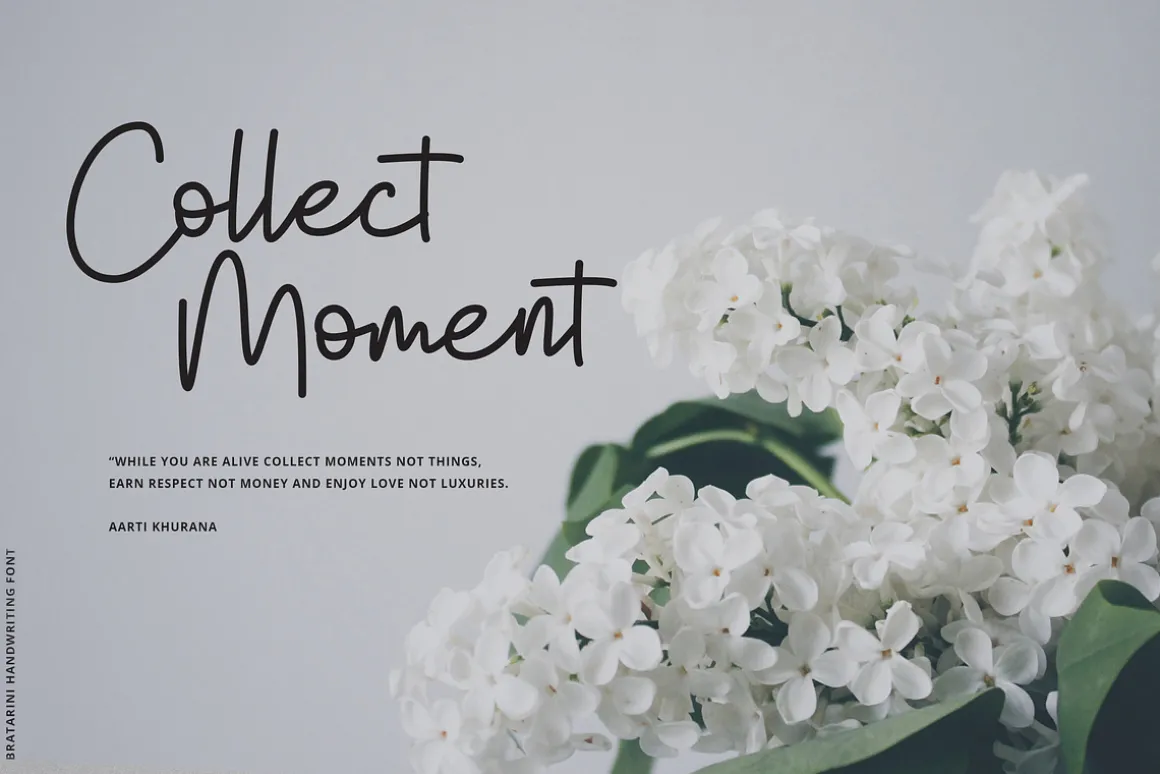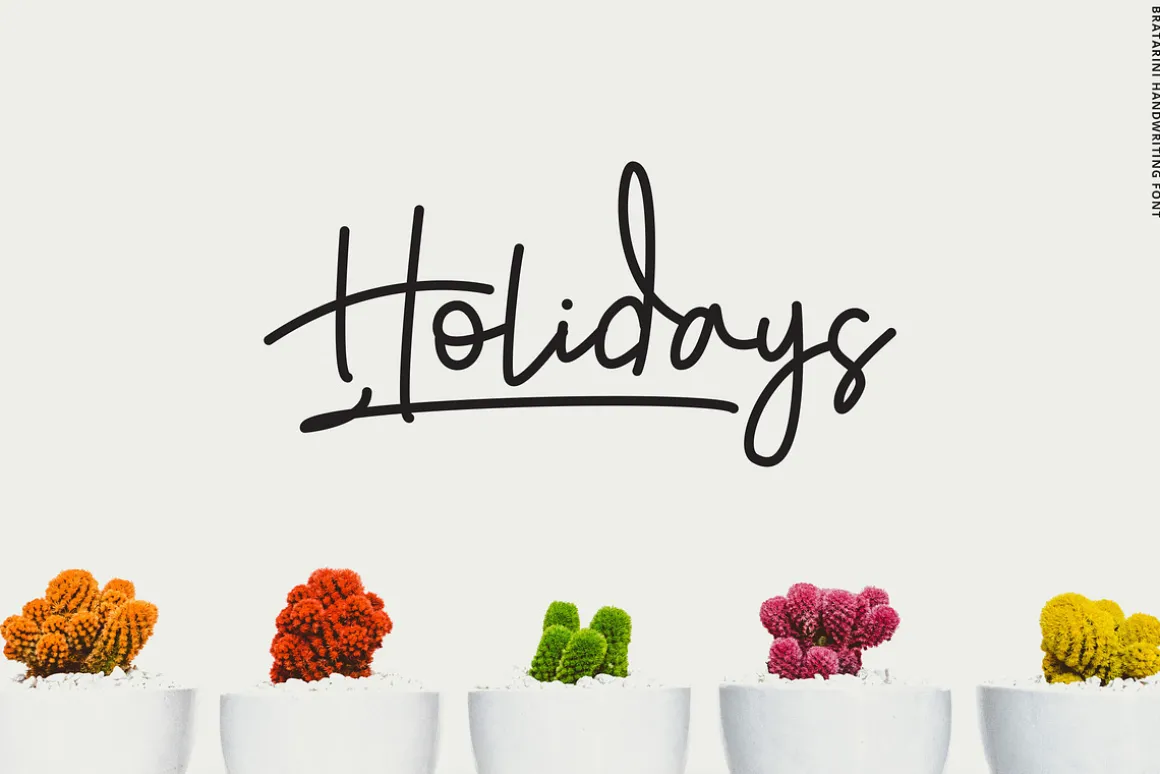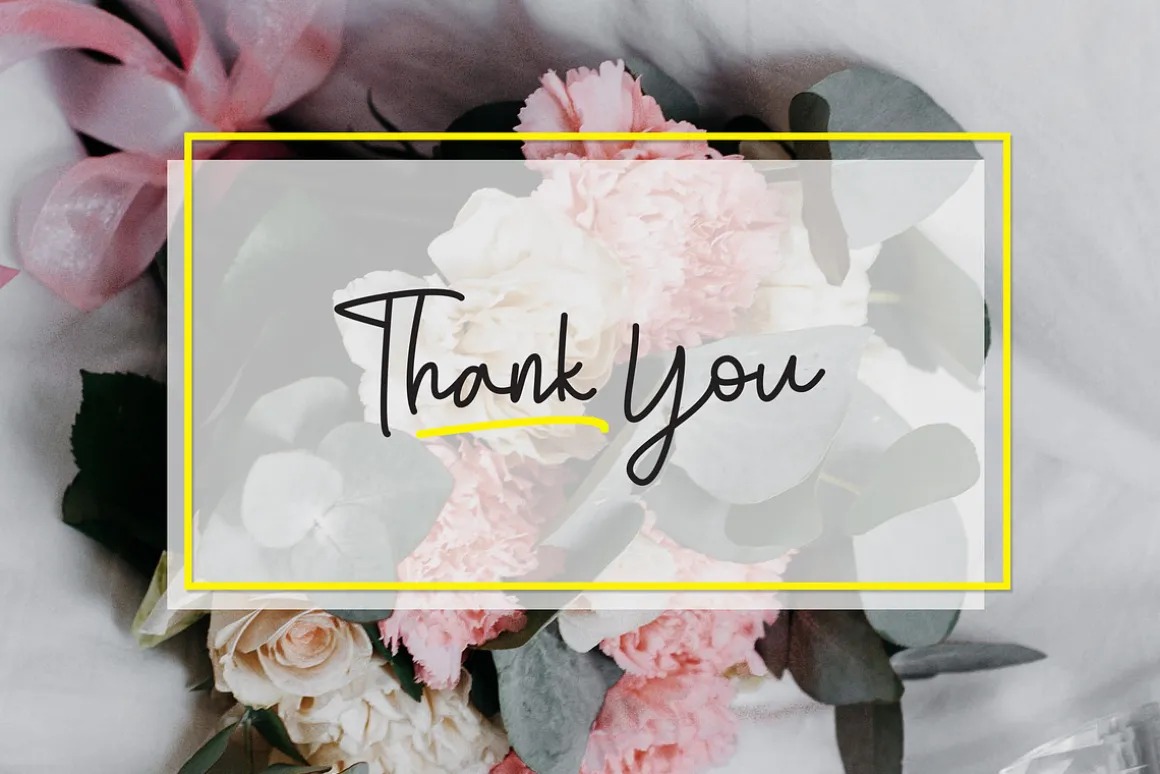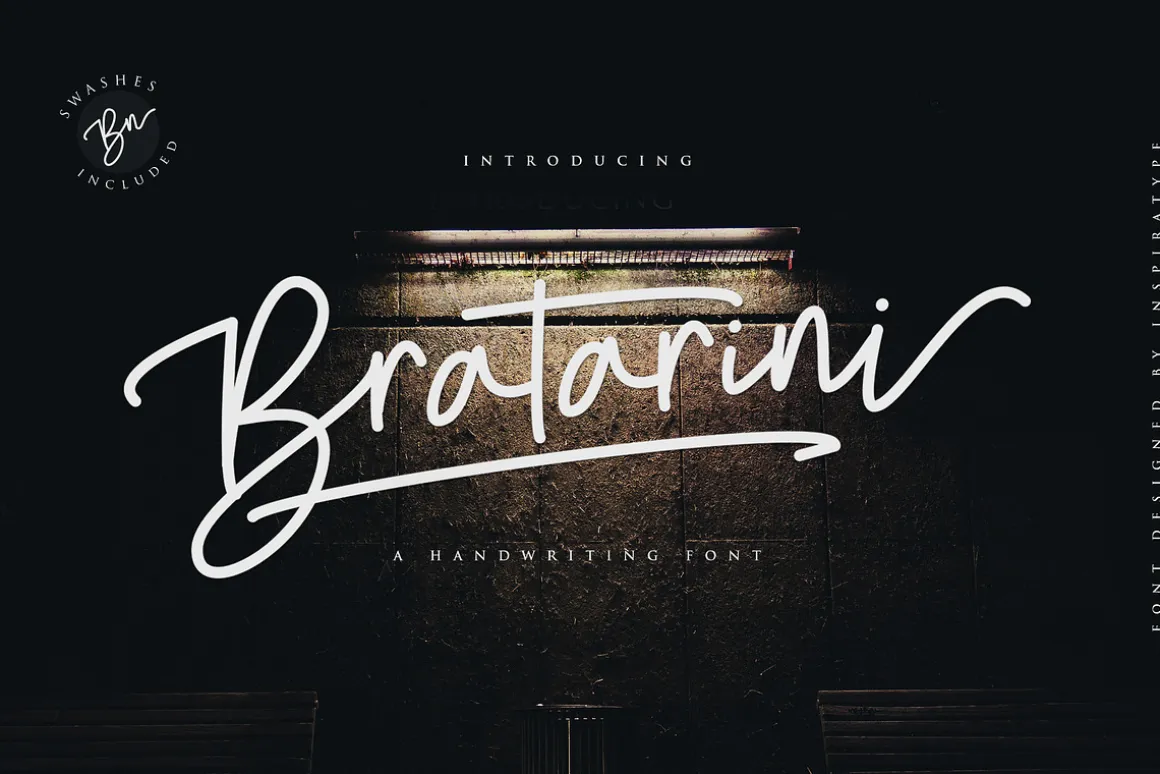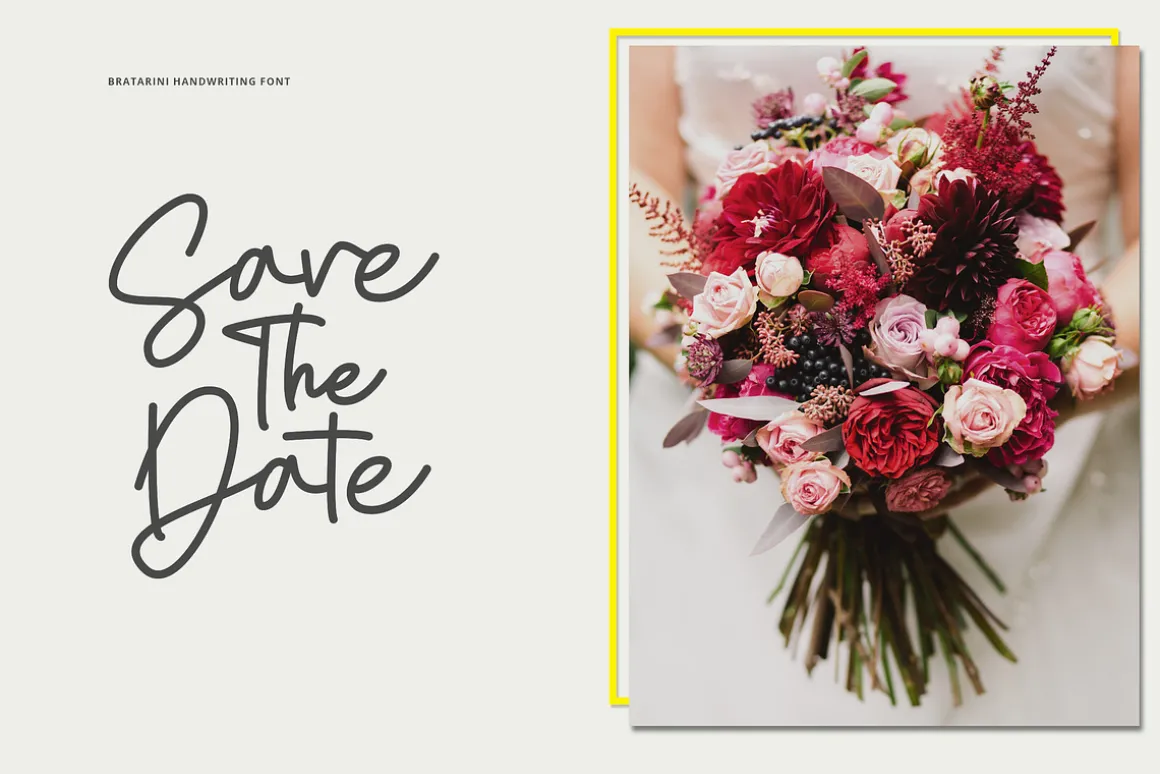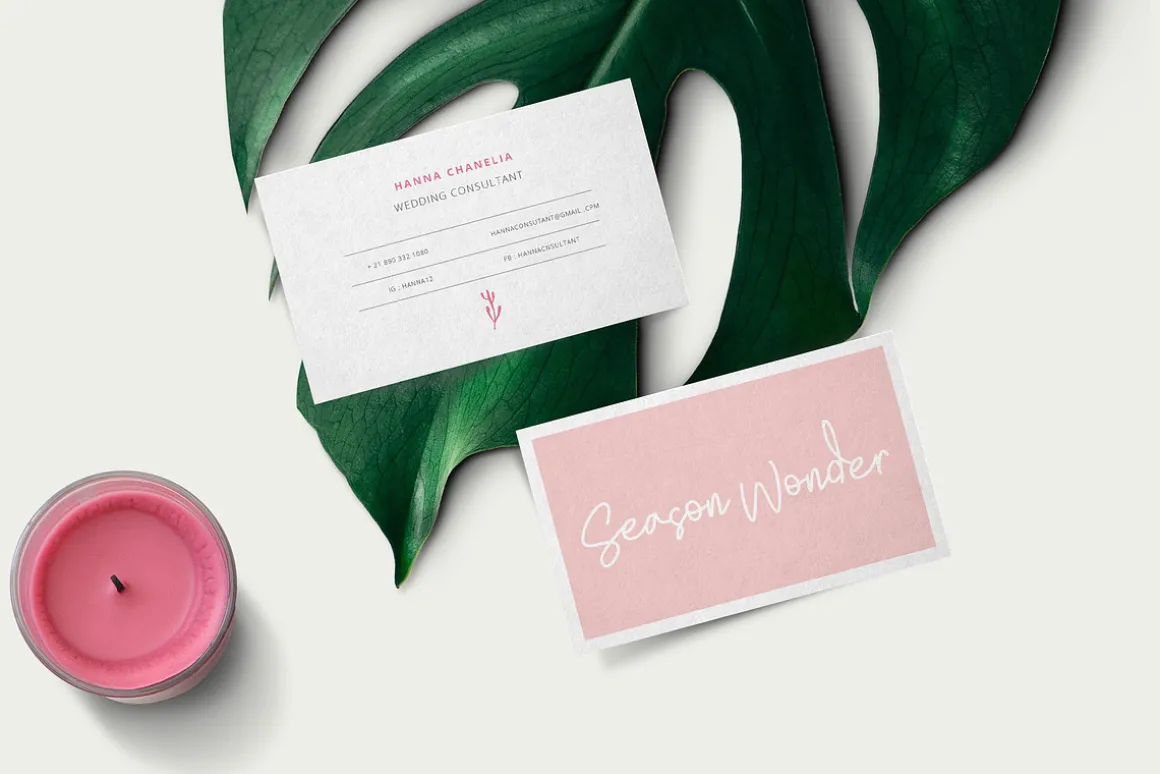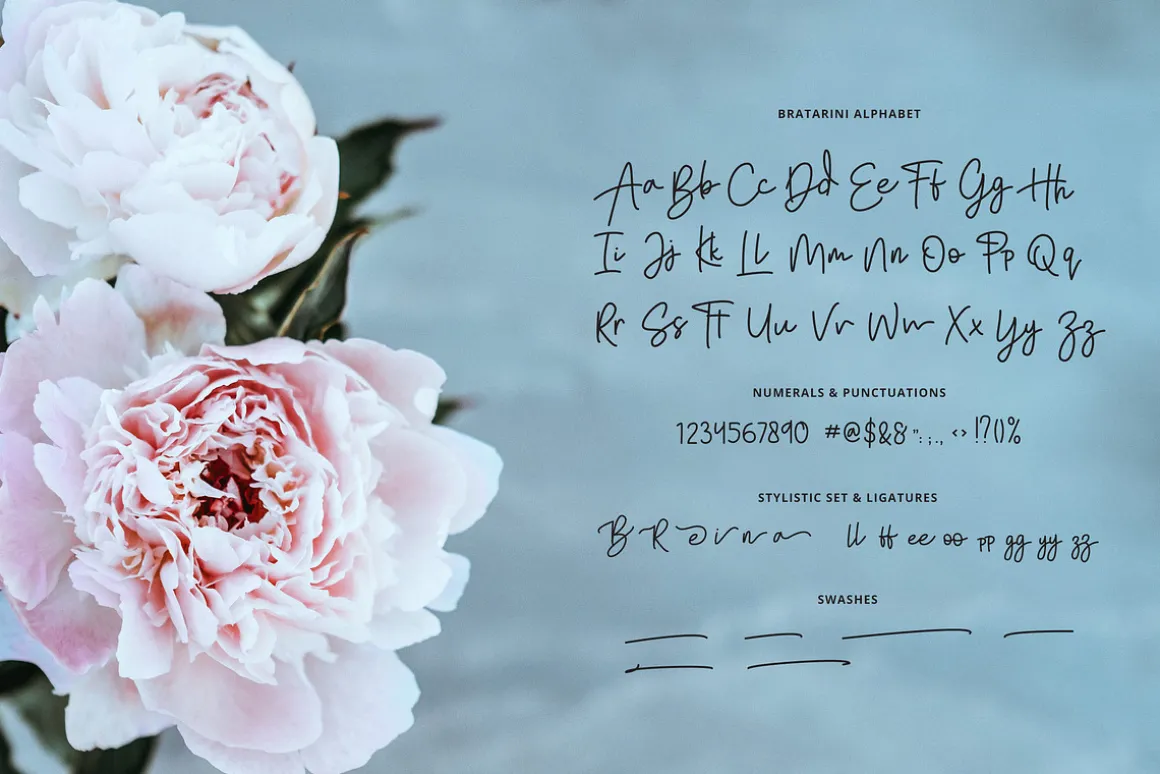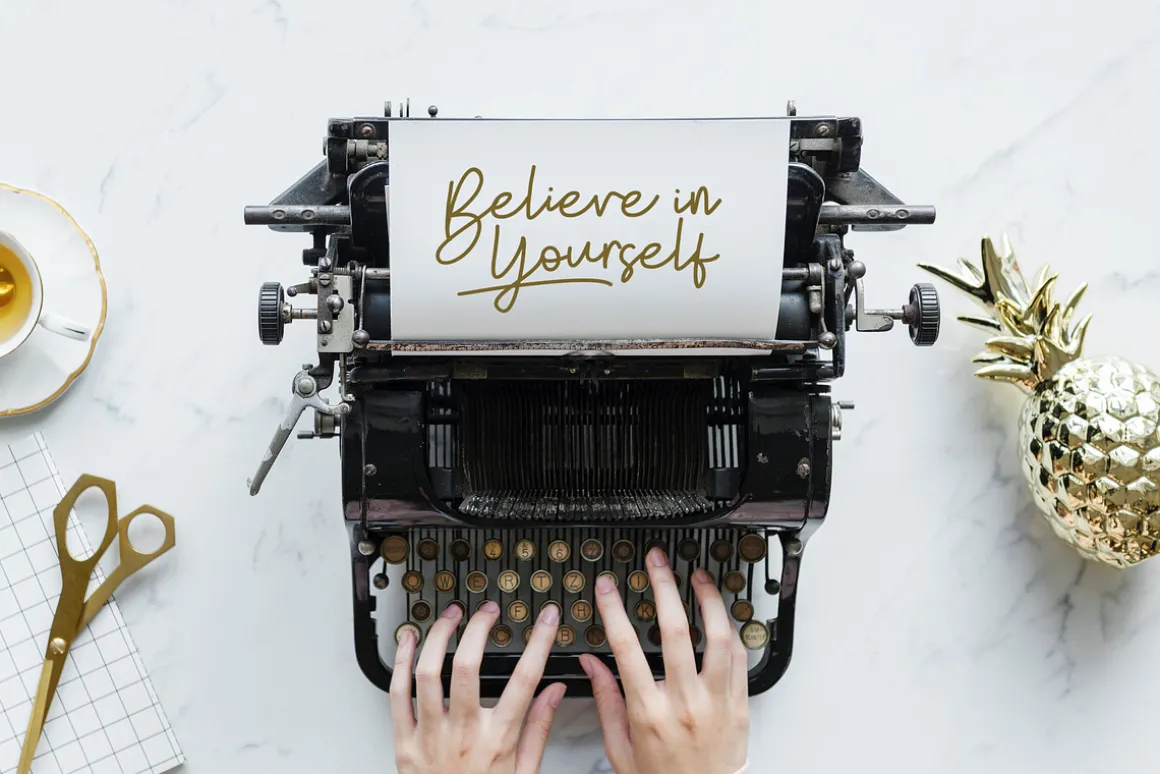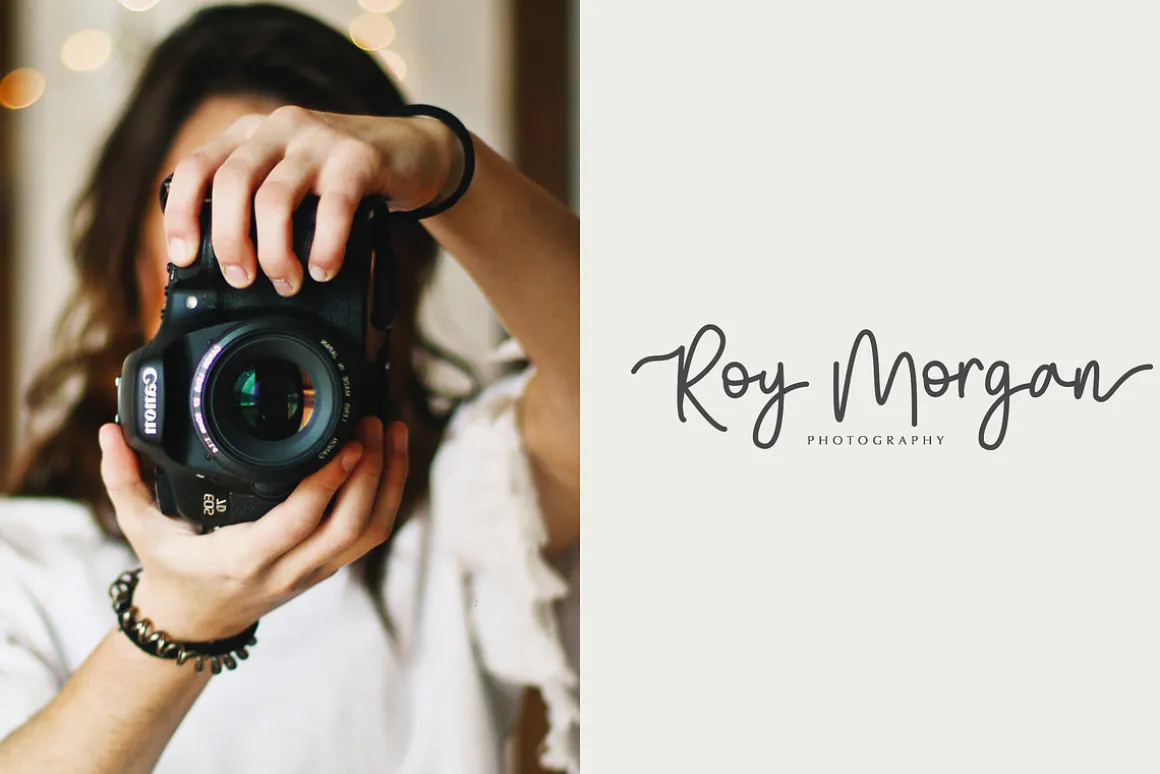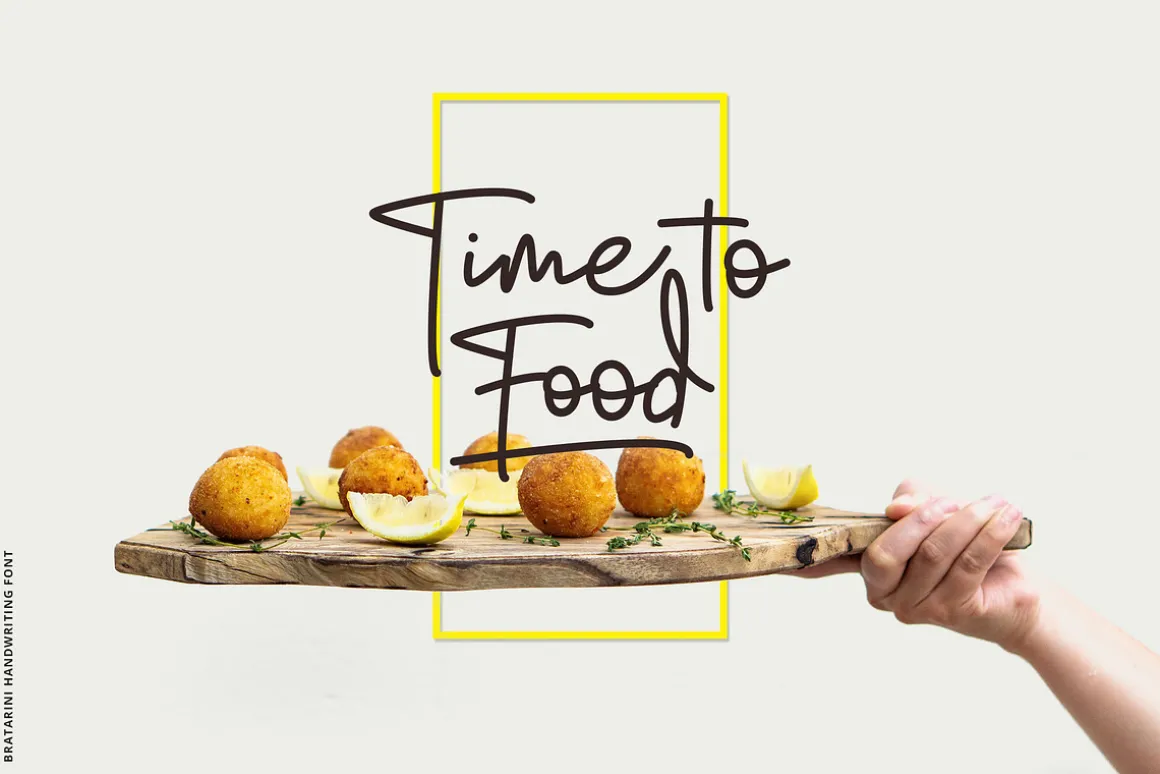
“Bratarini” is a font display that is made by hand, inspired by classic posters.
comes with uppercase, lowercase, numerals, punctuations and so many variations on each character include OpenType alternates, common ligatures and also additional swash to let you customize your designs. Perfect to use for Logotype, Letterhead, Poster, Apparel Design, Label and etc.
OPENTYPE FEATURES
- Swash
- Standard Ligatures
- Contextual Alternates
- Stylistic Alternates
- All Alternates